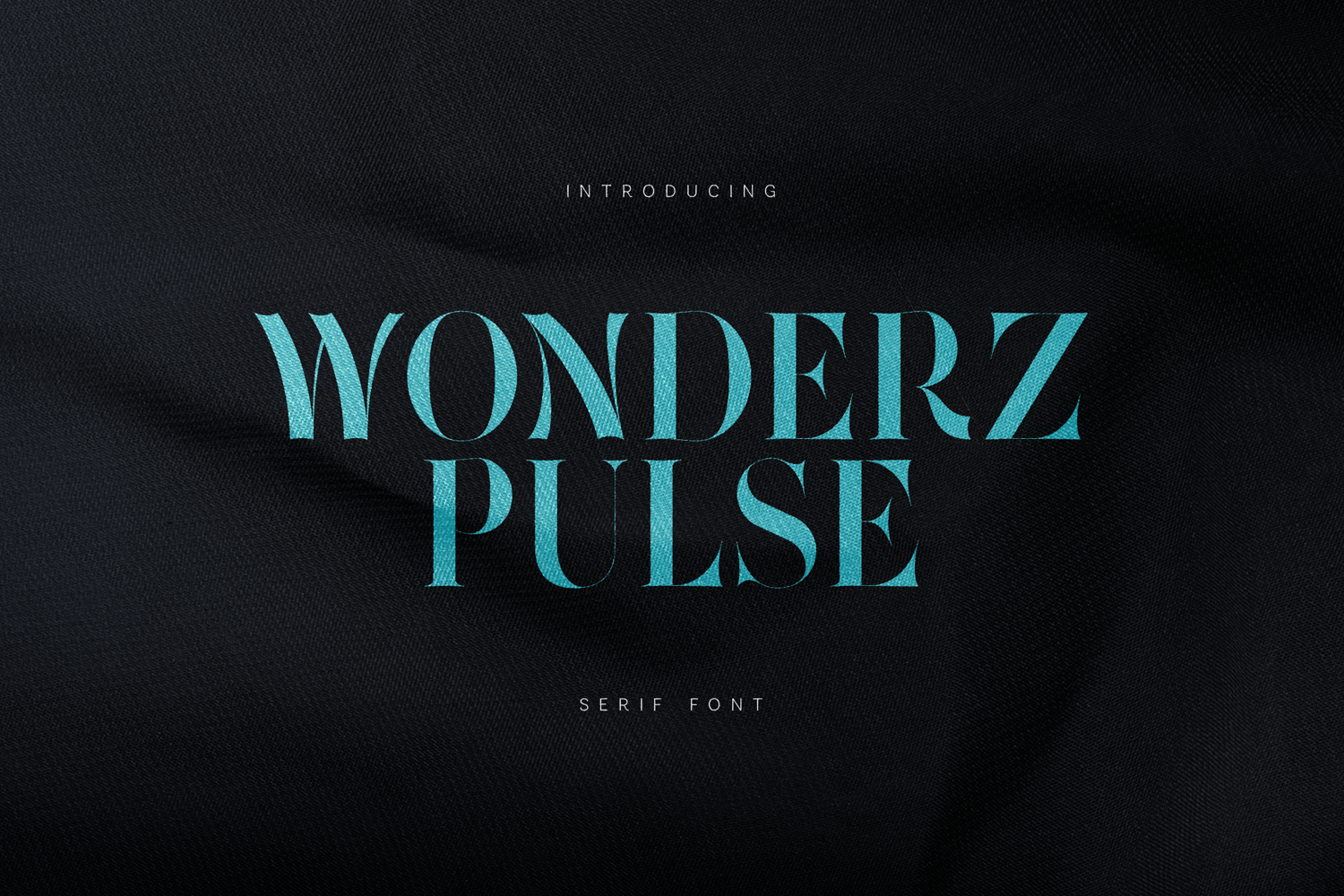
Wonderz Pulse Elegant Modern Serif Font
Wonderz Pulse is a refined modern serif font designed for high-impact editorial design, luxury branding, and sophisticated visual storytelling.
With sharp contrast, sculpted curves, and distinctive character details, Wonderz Pulse delivers a confident yet elegant presence. The dramatic uppercase forms pair beautifully with its expressive lowercase, making it perfect for fashion campaigns, premium packaging, magazine layouts, logotypes, and statement typography.
This typeface supports extended Latin characters and multilingual typography, making it suitable for international branding projects.
- Stylish alternates & distinctive letterforms
Luxury branding, fashion editorials, logo design, beauty campaigns, posters, packaging, social media graphics, and high-end print layouts.
Wonderz Pulse brings elegance, tension, and modern refinement into every composition.